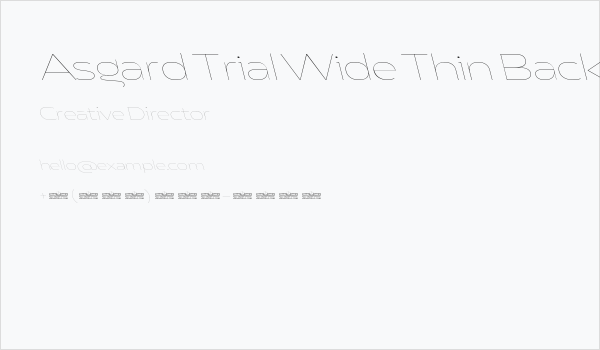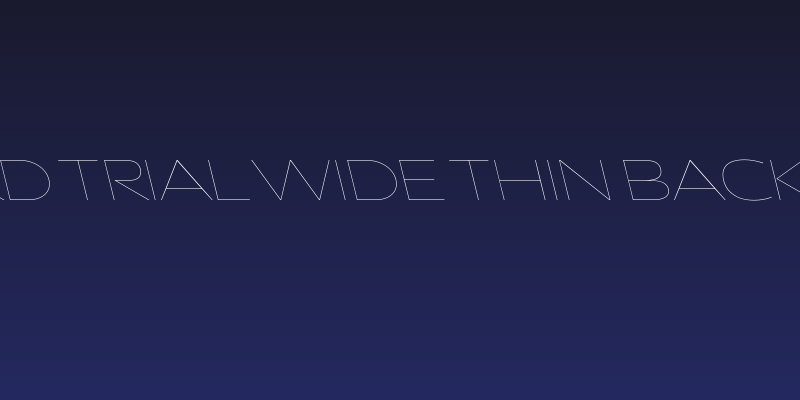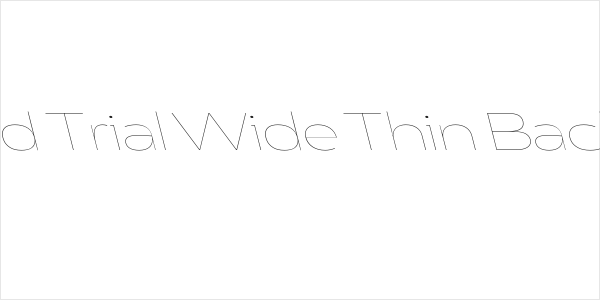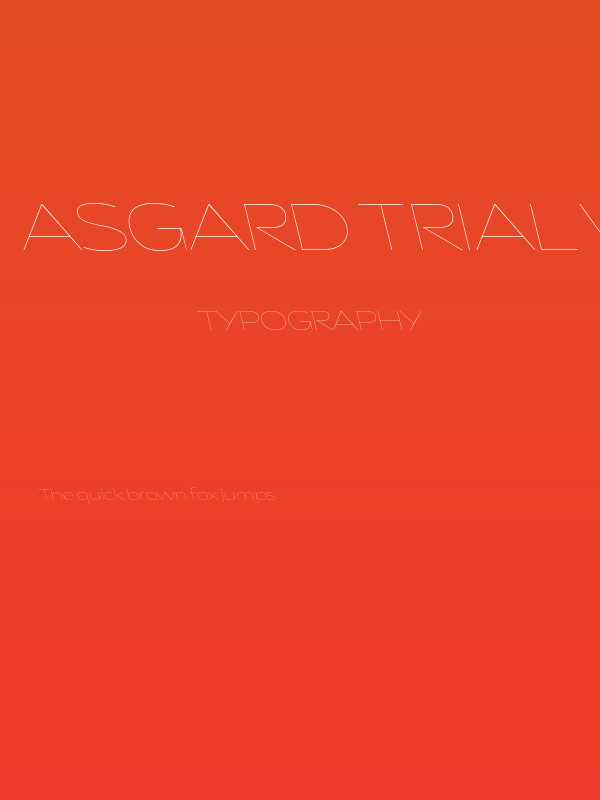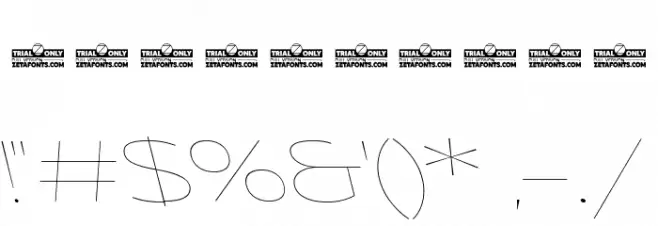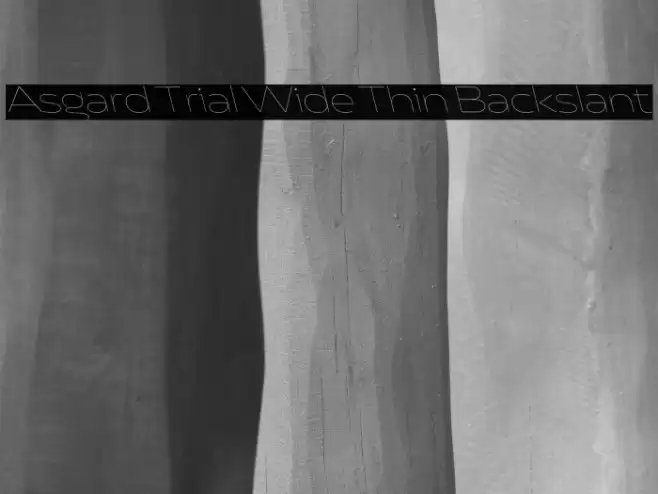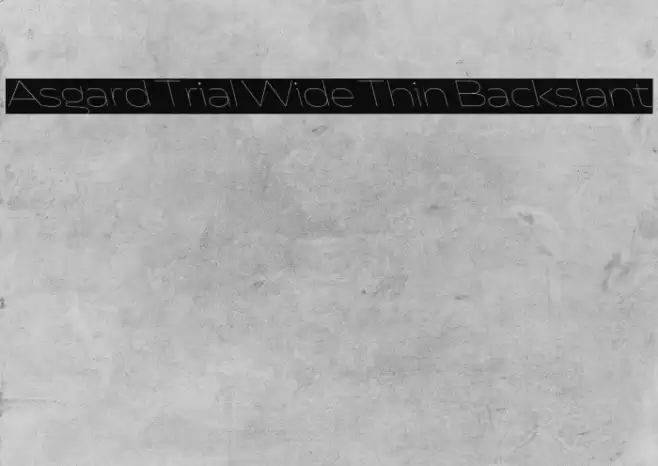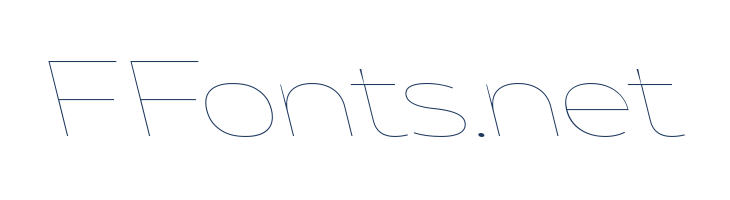
Asgard Trial Wide Thin Backslant Font
Asgard Trial Wide Thin Backslant Description
This font features a unique backslant style with thin, elongated characters that give it a modern and sleek appearance. The uppercase and lowercase letters maintain a consistent geometric form, with sharp angles and clean lines. The numerals and special characters follow the same design principles, ensuring uniformity across all glyphs. The overall aesthetic is minimalistic, making it suitable for contemporary design projects. The thin strokes and wide character spacing contribute to its airy and open feel, while the backslant adds a touch of dynamism and movement.